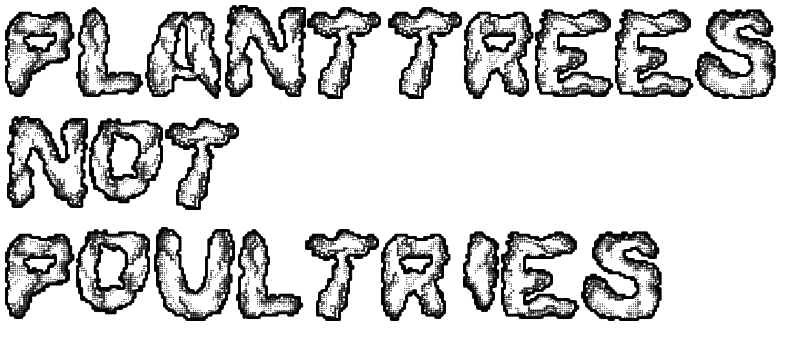
Very good shading in those 'blobs of fatty letters' ;) Somehow it reminds me of almost-set jelly, and of rather soft biscuit dough with finger indents. Could also advertise very soft butter. Great :)
@ea2-frain - I agree with Aeolien.  However, perhaps you meant to say "for promoting _against_ animal cruelty" in your description?  ;^)
An attempt at a slogan or something idk I'm gonna eat some mcdonlgands
Chicken fatby ea2-frain